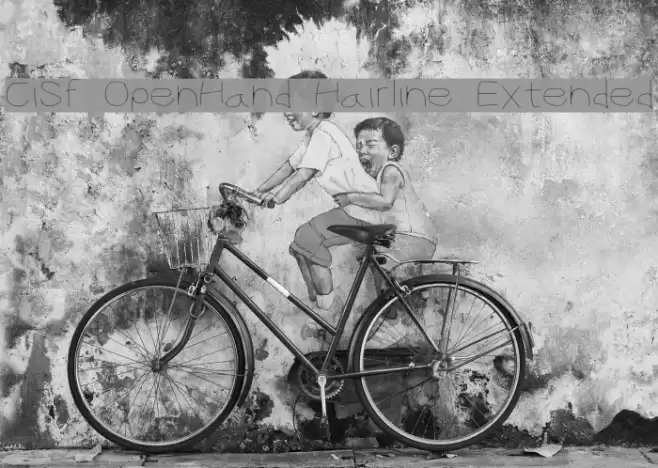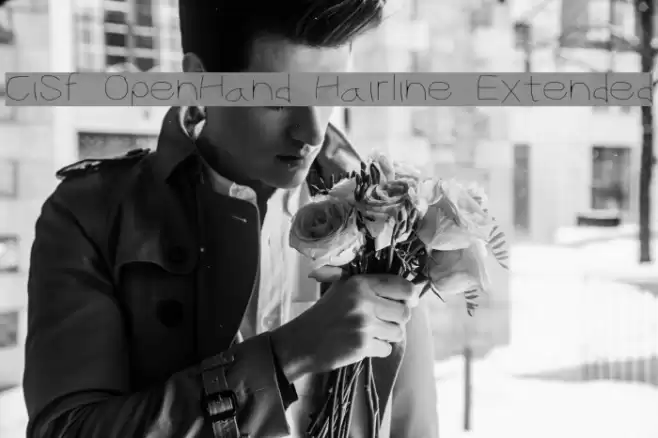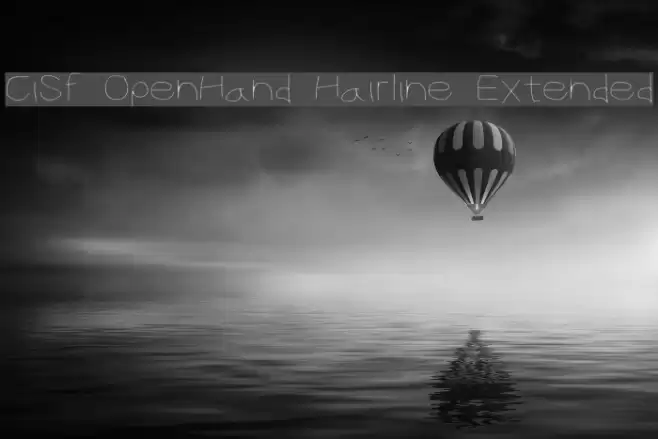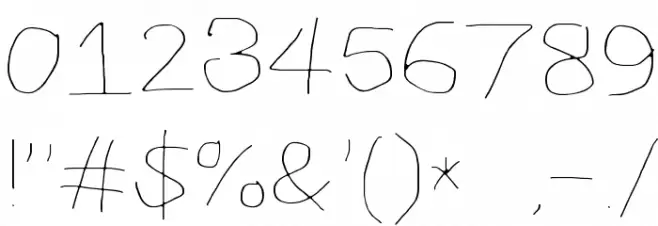
CiSf OpenHand Hairline Extended Font
CiSf OpenHand Hairline Extended Description
This font features a delicate, hand-drawn style with a hairline weight, giving it an airy and open appearance. The characters are extended, providing a sense of spaciousness and elegance. Each letter is crafted with a consistent thin stroke, maintaining a uniform look across both uppercase and lowercase alphabets. The numerals and special characters follow the same design principles, ensuring cohesion throughout. The font's simplicity and clarity make it suitable for projects that require a modern yet personal touch.
A hand-drawn, hairline, extended font with a modern and airy style from Uncategorized fonts.
- Proposed Projects: Ideal for personal branding, invitations, minimalist designs, and artistic projects.
- Weight: Light
- Width: Expanded
- Character Spacing: Wide
- Use Case: Logos, Invitations, Artistic projects